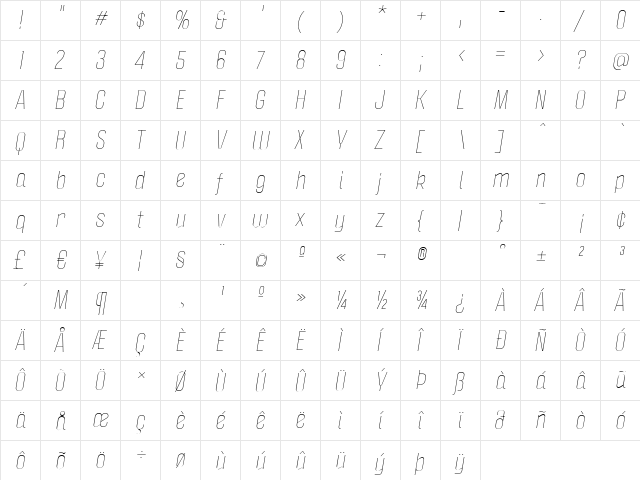
Politica Light Italic
| Foundry | Alejandro Paul |
| Designer | Alejandro Paul & Alfredo Graziani |
Design Context for Politica Typeface
Politica takes a measured approach to typography — its balanced proportions and neutral character make it a reliable workhorse for both digital and print work. The dynamic lean of this cut emphasises speed and emphasis in any layout. The delicate stroke weight brings airiness and refinement to layouts.